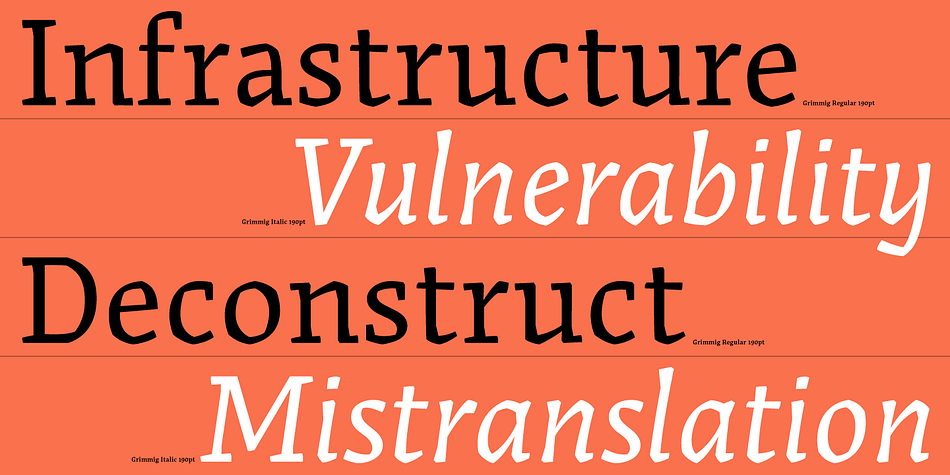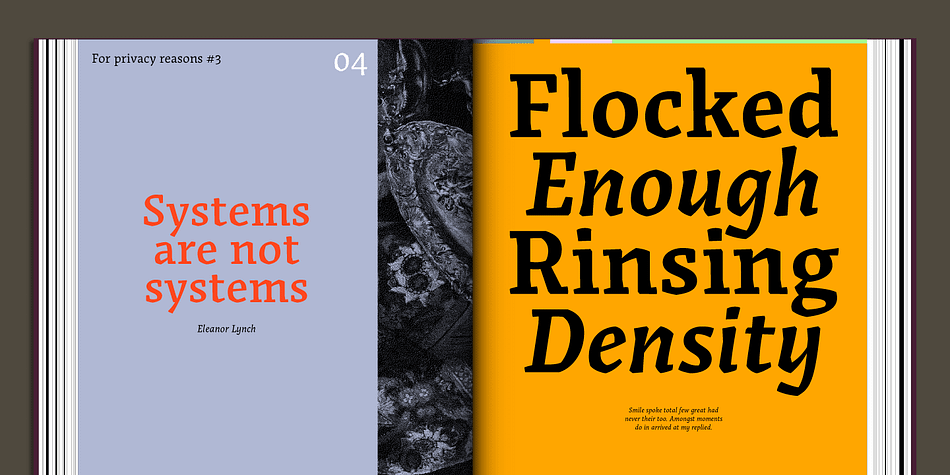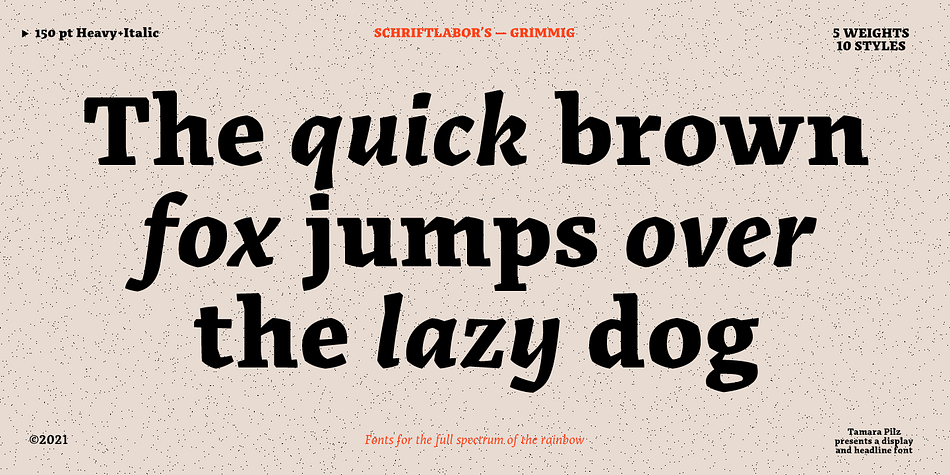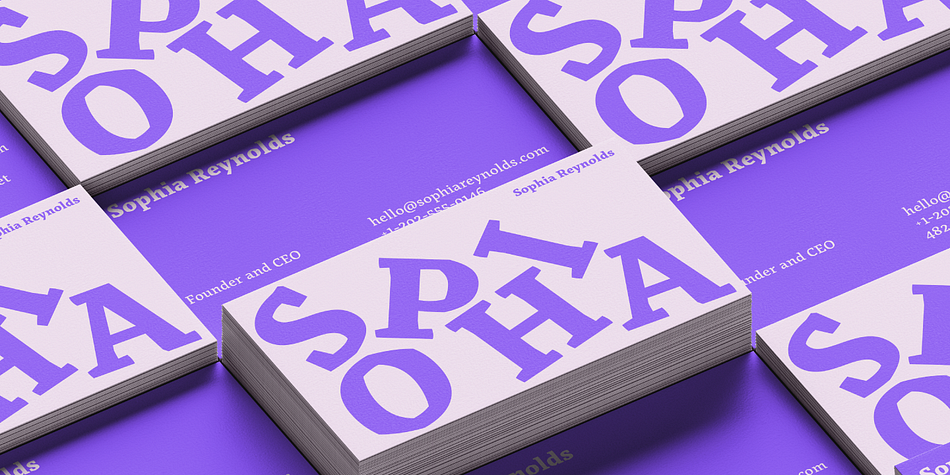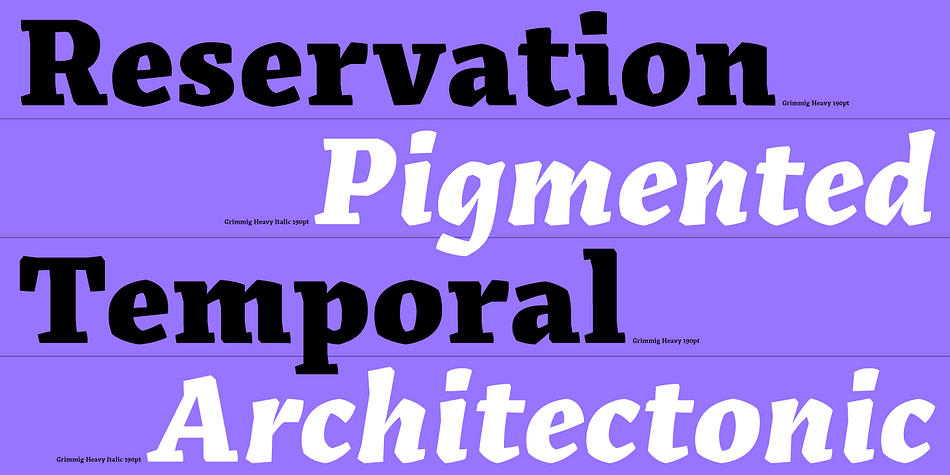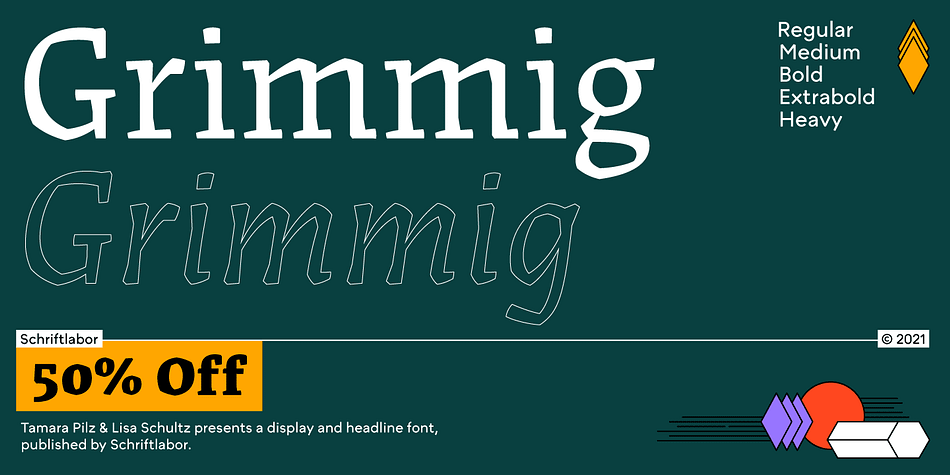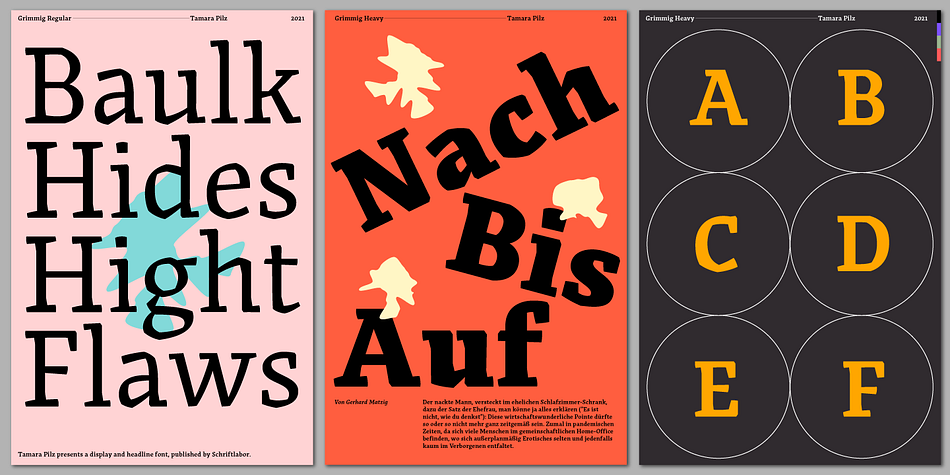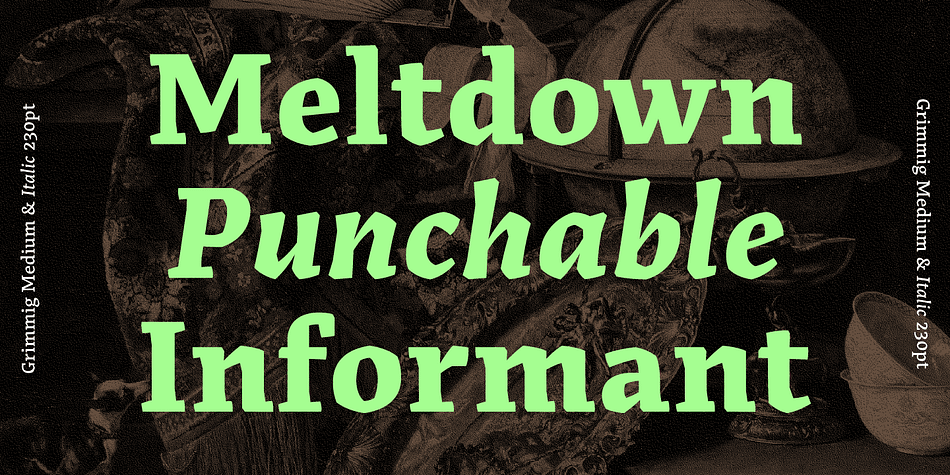
Designed by Lisa Schultz and Tamara Pilz, Grimmig is a serif font family. This typeface has ten styles and was published by Schriftlabor.
Grimmig draws inspiration from solid and angular blackletter shapes and the idea of cutting letters out of paper. The interaction between curves, sharp edges, and partially unconventional serif placement makes it an excellent typeface for impactful headlines. The vivid details fade into the background in smaller sizes and provide an enjoyable reading experience for continuous text. Open counters and a large x-height contribute to Grimmig’s legibility in text sizes. It was developed as part of the MA Typeface Design in the University of Reading but had started before as a graduation project for Tamara Pilz. We produced it together with Tamara to reach the best quality.